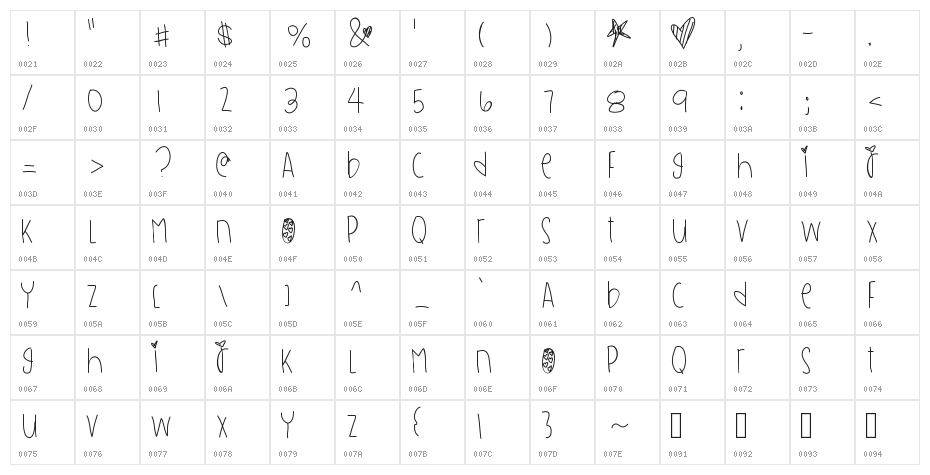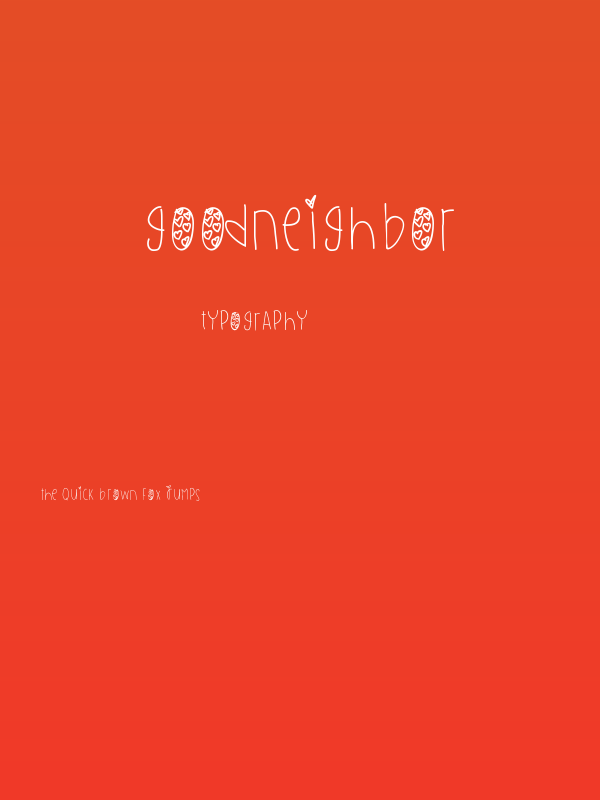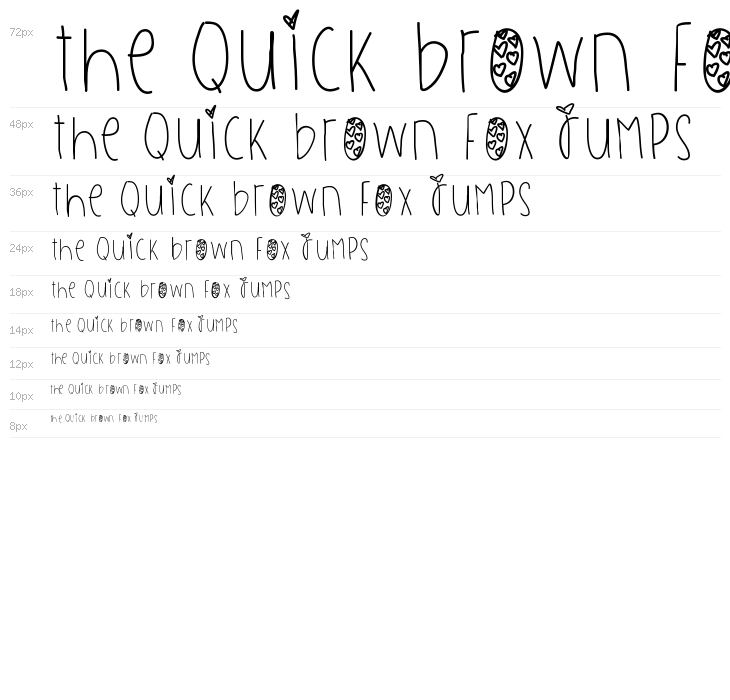
GoodNeighbor Font
GoodNeighbor Description
This playful and whimsical font features a handwritten style with a casual, friendly appearance. The letters are slightly irregular, adding to the charm and uniqueness of the design. Some characters, like the 'O', are decorated with heart patterns, while others, like the 'i' and 'j', have heart-shaped dots. The numbers and special characters maintain the same playful aesthetic, with some symbols like the ampersand and asterisk incorporating additional decorative elements. This font exudes a sense of fun and creativity, making it perfect for informal and lighthearted projects.
| Use Case | Logos, Headlines, Invitations |
| Proposed Projects | Ideal for greeting cards, children's books, playful branding, and social media graphics. |